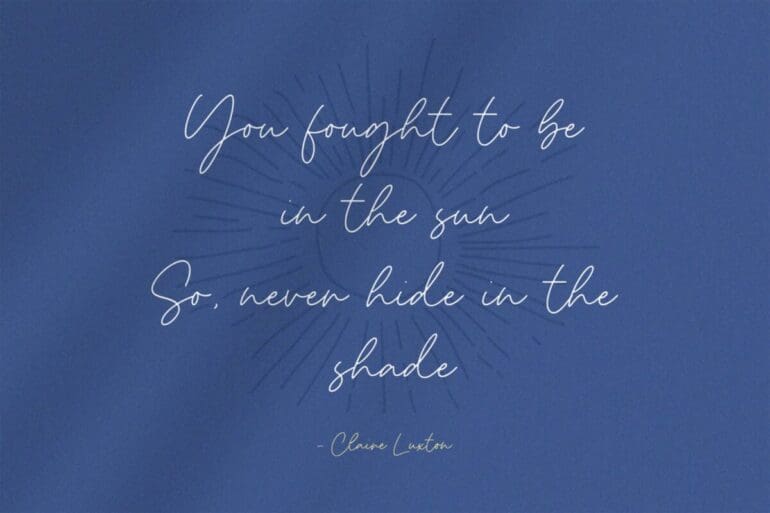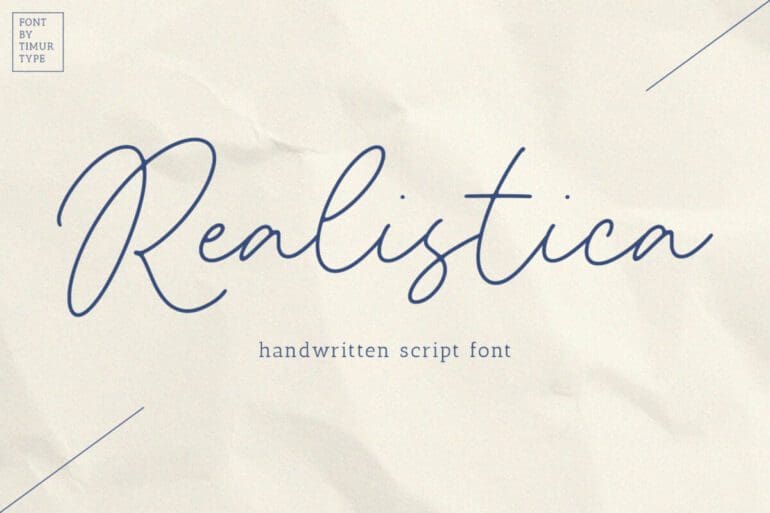
Realistica Font
Realistica is a lovely script font created with great care, especially for you! 😊
Realistica is perfect for product packaging, branding project, magazines, social media, weddings, or just used to express words above the background.